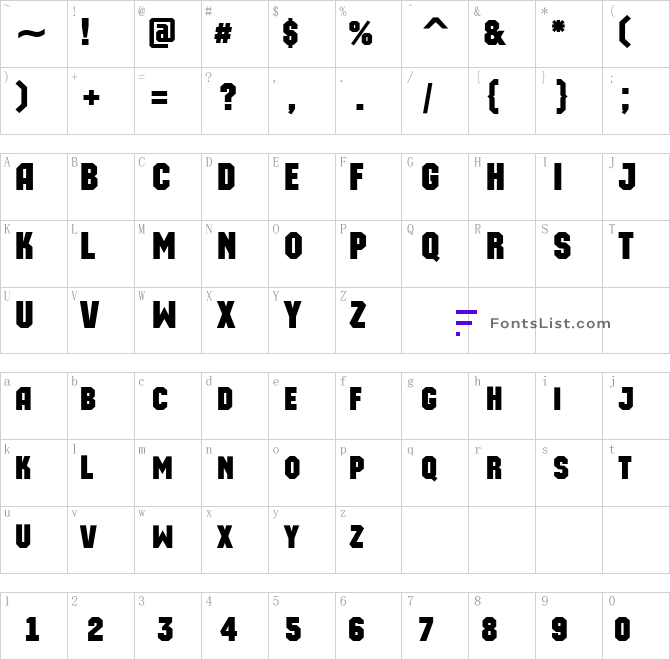
- Font Name:a_MachinaOrtoCaps
- Subfamily:a_MachinaOrtoCaps Bold
- Full Name:a_MachinaOrtoCaps Bold
a_MachinaOrtoCaps-Bold.ttf is a very beautiful artistic font, a_MachinaOrtoCaps-Bold.ttf is widely used in the design and printing of various books and pictures,a_MachinaOrtoCaps-Bold.ttf has a strong visual impact,a_MachinaOrtoCaps-Bold.ttf is a commonly used font in newspapers, magazines and books, and is used in posters, e-commerce Poster design, store design, logo design, font design and other fields.a_MachinaOrtoCaps-Bold.